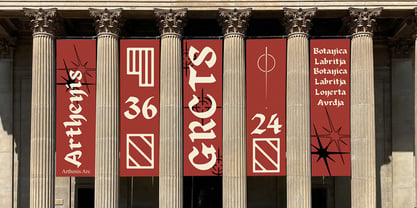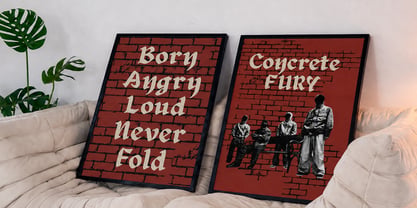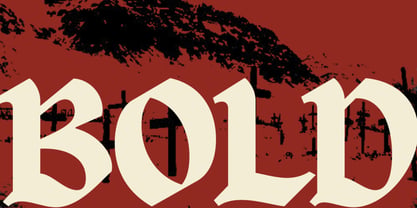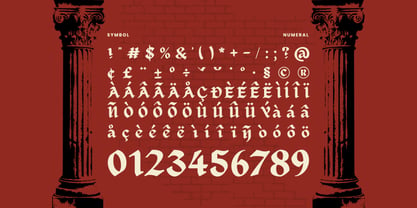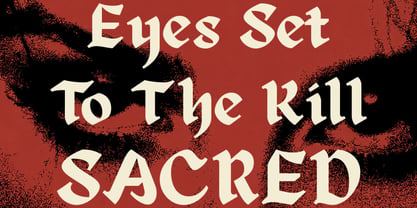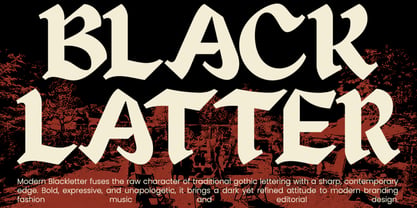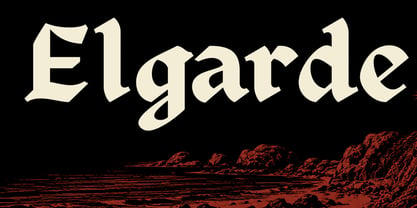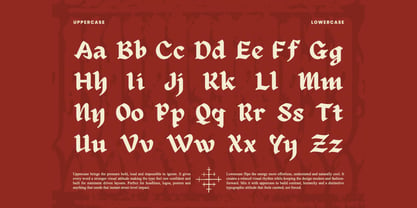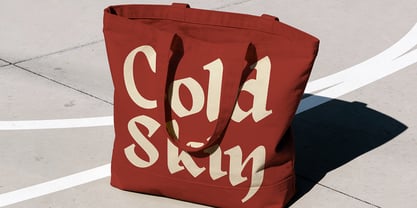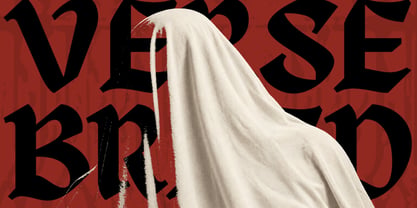
Elgarde
Elgarde is a modern blackletter typeface that combines traditional blackletter structure with a sharper, more contemporary visual character. The letterforms feature bold strokes, angular cuts, distinctive terminals, and dramatic proportions that give every word a strong historical and rebellious presence. Its uppercase characters are particularly impactful for large display typography, while the lowercase set offers a more compact and versatile rhythm for supporting text and secondary compositions.
Relevance and Use Case is perfect for band identities, metal and rock artwork, tattoo branding, streetwear collections, apparel graphics, posters, album covers, gaming artwork, event graphics, product labels, restaurant or bar branding, and distinctive logo concepts. The uppercase characters are especially useful for prominent headlines and wordmarks, while lowercase letters can add variation and visual rhythm to supporting names or short phrases.